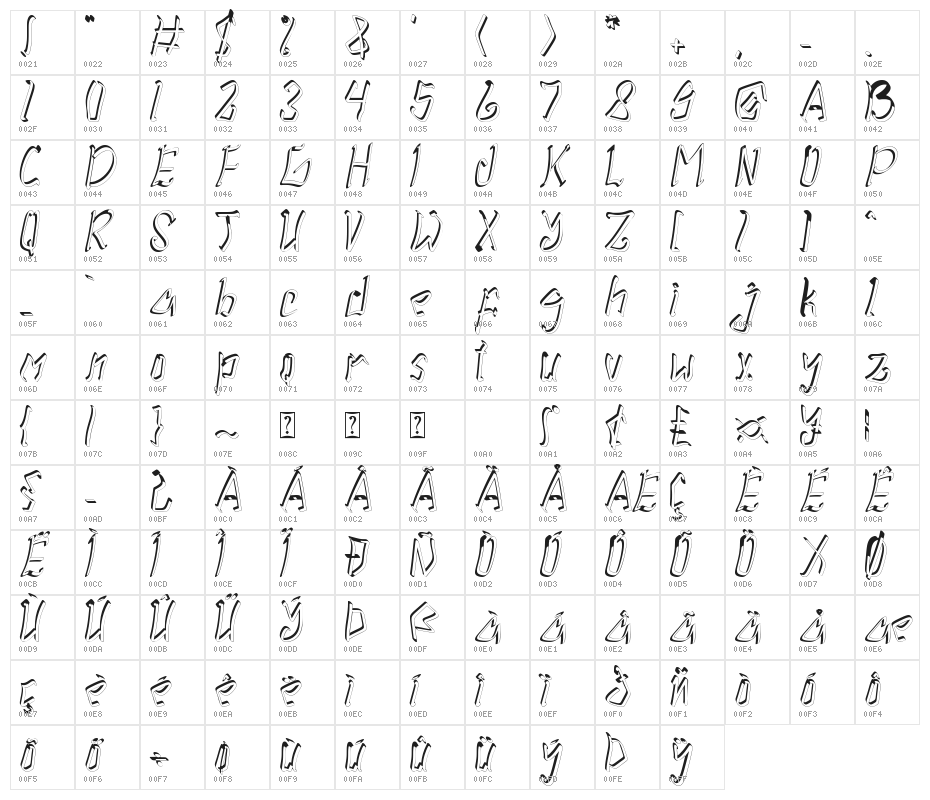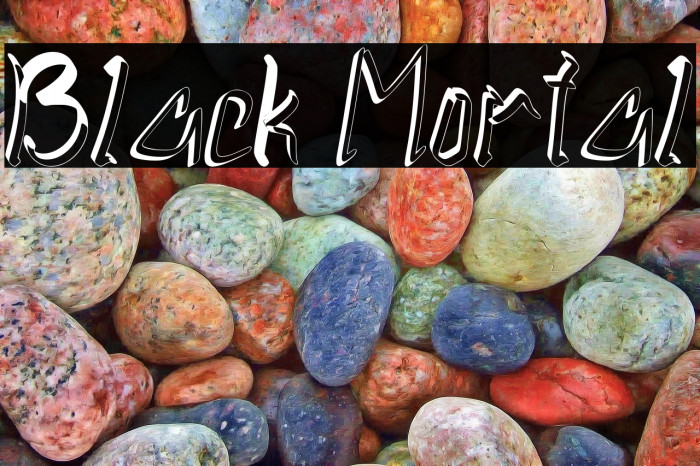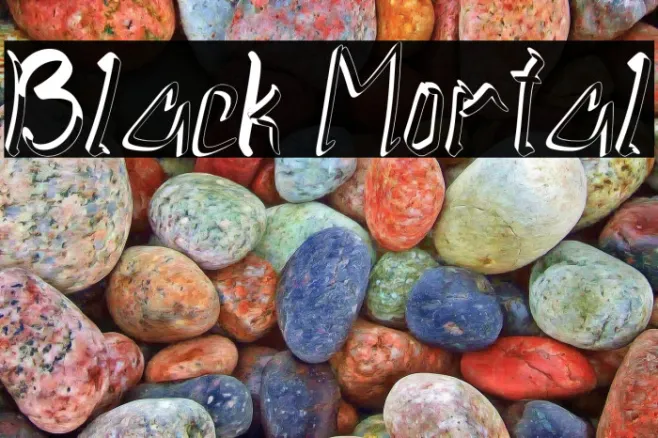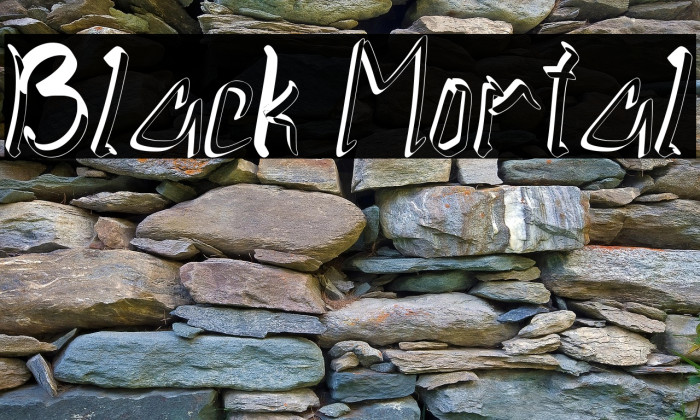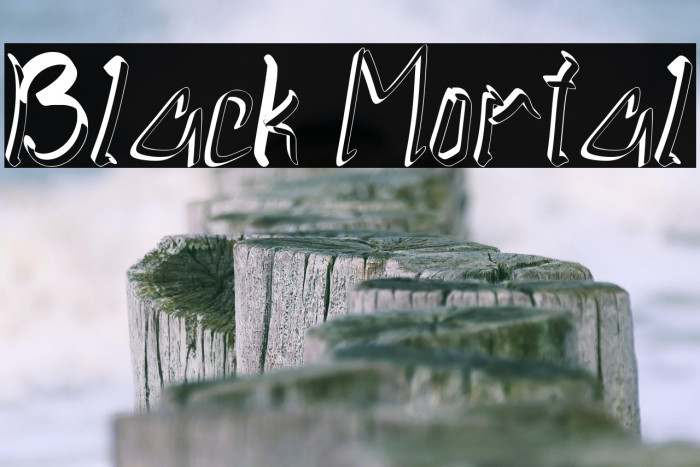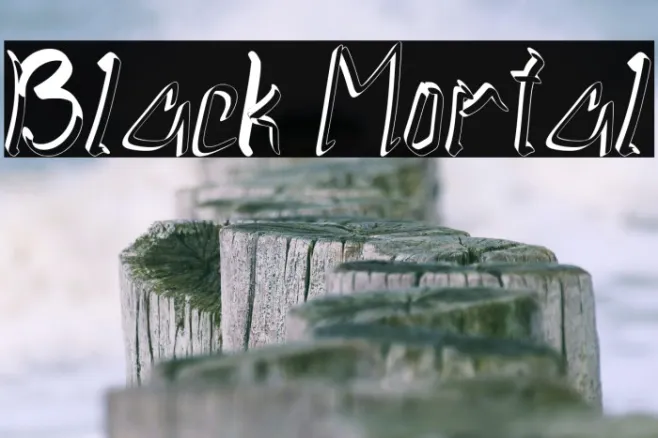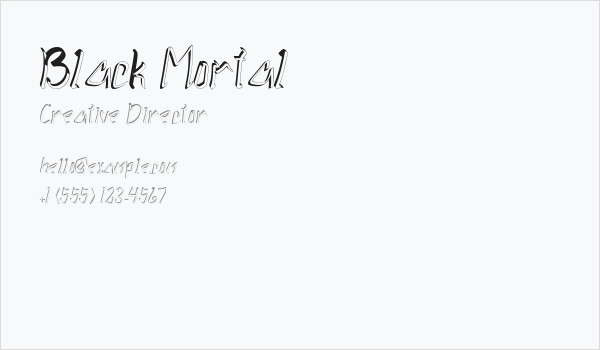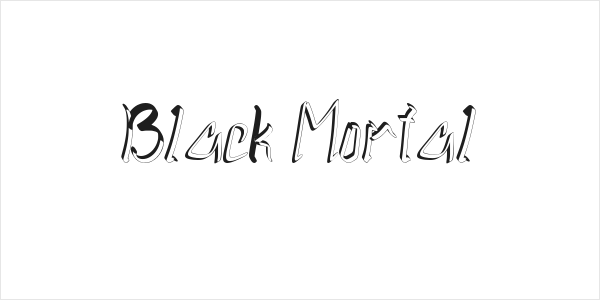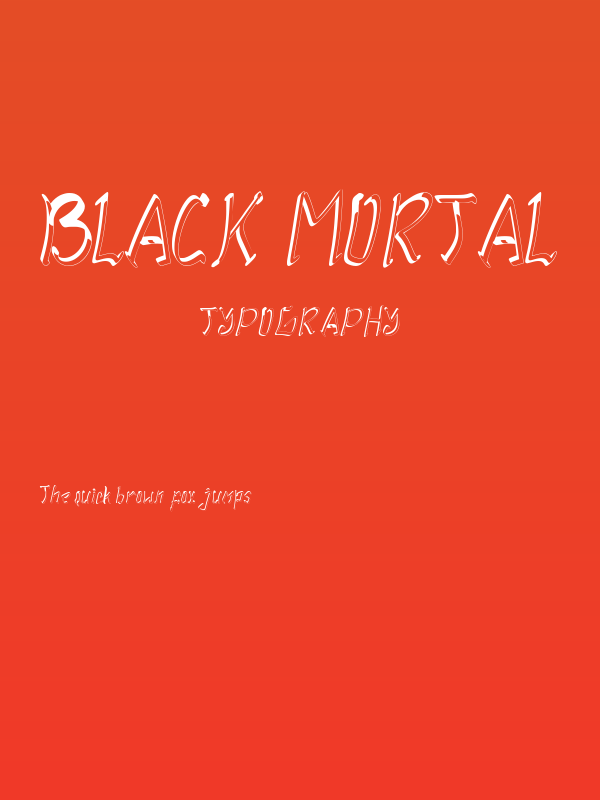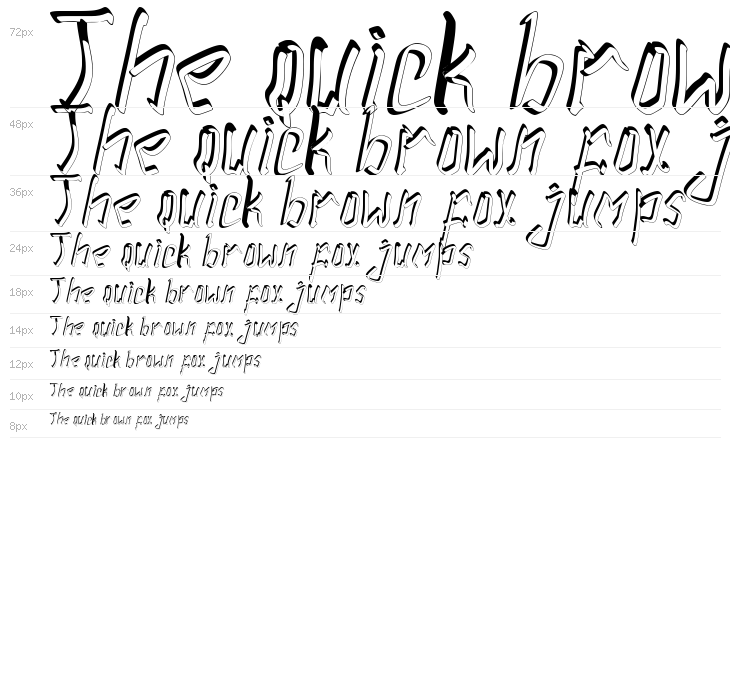
Black Mortal Font
Black Mortal Description
This font features a dynamic and edgy style with a hand-drawn appearance, characterized by its bold, irregular strokes and a slightly rough texture. The letters have a unique, artistic flair, with varying line thicknesses that give it a lively and energetic feel. The uppercase and lowercase letters are distinct yet harmonious, and the numbers and special characters maintain the same expressive quality. This font is ideal for projects that require a bold statement and a touch of creativity.
| Proposed Projects | Ideal for posters, album covers, graffiti art, and creative branding projects. |